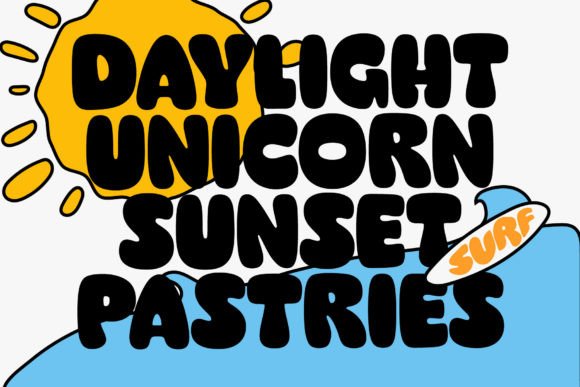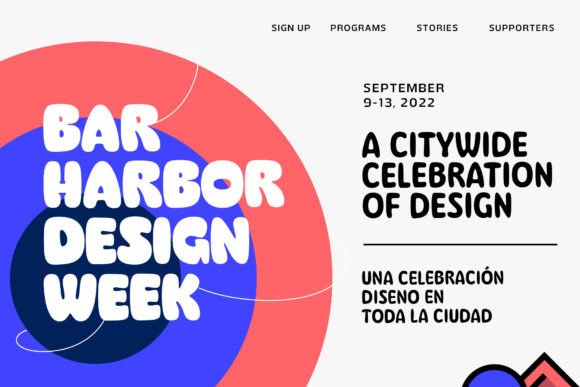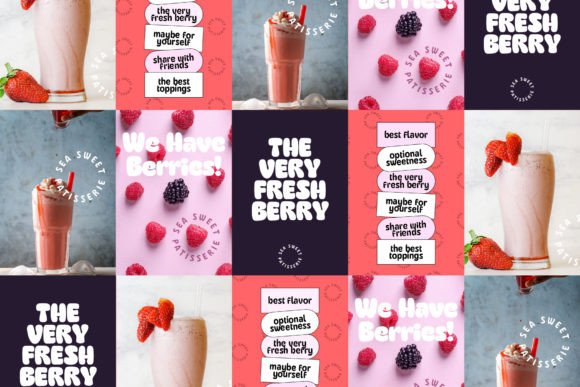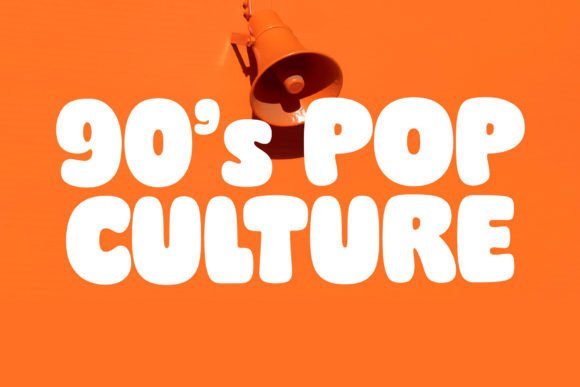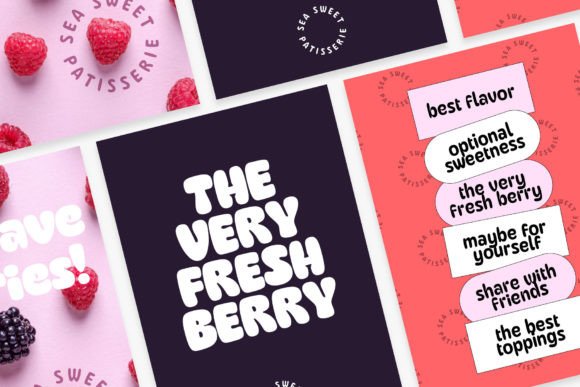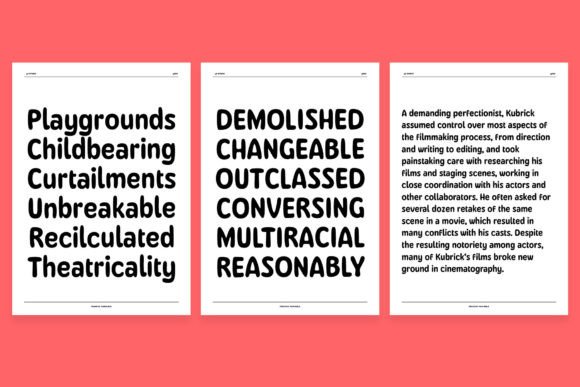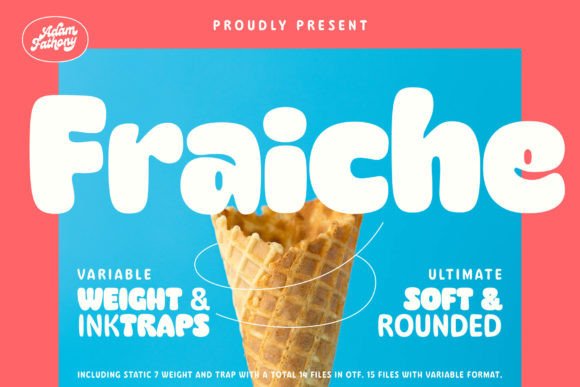
Discover the Delightful Fraiche Font: Adding a Touch of Youth and Joy to Your Designs
Are you tired of using the same old fonts in your designs? Look no further than the Fraiche Font, a soft and rounded display typeface that’s sure to bring a smile to your face. With its cheerful and bright personality, Fraiche is perfect for any project that requires a touch of youth and joy. In this article, we’ll dive into the world of Fraiche and explore its features, benefits, and uses.
What is Fraiche Font?
Fraiche is a modern display typeface designed to add a playful and carefree touch to your designs. Its soft and rounded edges give it a friendly and approachable feel, making it perfect for designs that need to appeal to a younger audience. Whether you’re working on a branding project, a children’s book, or a website, Fraiche is sure to bring a burst of energy and enthusiasm to your work.
Key Features of Fraiche Font
So, what makes Fraiche so special? Here are some of its key features:
• Soft and Rounded Edges: Fraiche’s soft and rounded edges give it a unique and playful feel that’s hard to resist.
• Cheerful and Bright Personality: This font is designed to bring a smile to your face, making it perfect for designs that need to be fun and engaging.
• Highly Legible: Despite its playful nature, Fraiche is highly legible, even at small sizes.
• Versatile: Fraiche can be used for a wide range of projects, from branding and advertising to packaging and web design.
Benefits of Using Fraiche Font
So, why should you choose Fraiche for your next design project? Here are some of the benefits of using this delightful font:
• Adds a Touch of Youth and Joy: Fraiche is perfect for designs that need to appeal to a younger audience or convey a sense of fun and playfulness.
• Stand Out from the Crowd: With its unique and playful design, Fraiche is sure to help your designs stand out from the crowd.
• Easy to Read: Fraiche’s high legibility makes it easy to read, even for long blocks of text.
• Customizable: Fraiche can be customized to fit your brand’s style, making it a great choice for branding and advertising projects.
Using Fraiche Font in Your Designs
So, how can you use Fraiche in your designs? Here are some ideas to get you started:
• Branding and Advertising: Use Fraiche to create eye-catching logos, posters, and advertisements that appeal to a younger audience.
• Children’s Books and Magazines: Fraiche is perfect for children’s books and magazines, adding a playful and engaging touch to your content.
• Web Design: Use Fraiche to create fun and engaging website headers, buttons, and other UI elements.
• Packaging Design: Add a touch of playfulness to your packaging designs with Fraiche, making your products stand out on store shelves.
Font Name Fraiche Font
Author Adam Fathony
In conclusion, Fraiche Font is a delightful and playful display typeface that’s perfect for adding a touch of youth and joy to your designs. With its soft and rounded edges, cheerful and bright personality, and high legibility, Fraiche is sure to bring a burst of energy and enthusiasm to your work. Whether you’re a designer, crafter, or DIY enthusiast, Fraiche is a great choice for any project that needs a little extra fun and playfulness.